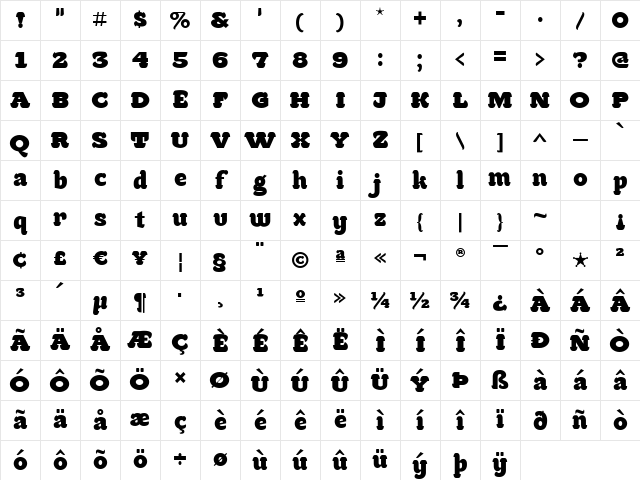
Complete ManifestDestiny Regular glyph index. Displaying only characters natively supported by ManifestDestiny Regular font.
ManifestDestiny is a composed and adaptable typeface that performs quietly and consistently across a wide range of design contexts.
Who designed the ManifestDestiny Regular font?